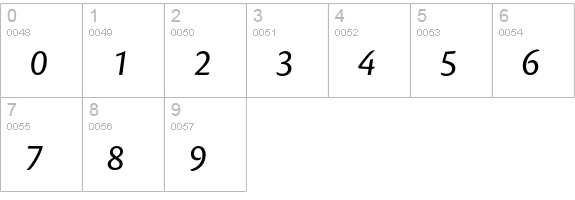
Cronos Pro Italic is a distinctive, italic variant in the Cronos typeface family \xE2\x80\x94 well suited to design and typography projects.
Cronos Pro Italic is a sleek and modern font that exudes sophistication and elegance. Its slanted design adds a touch of flair to any project, making it perfect for both professional and creative endeavors. The italic style of Cronos Pro offers a unique twist on traditional typography, giving your text a dynamic and eye-catching appearance. Best of all, Cronos Pro Italic is available for free download at FontsMarket.com. This means you can easily access this stunning font and elevate your designs without any cost. Whether you're working on a branding project, a website design, or any other creative venture, Cronos Pro Italic is sure to make a lasting impression. Download it today and add a touch of style to your work!